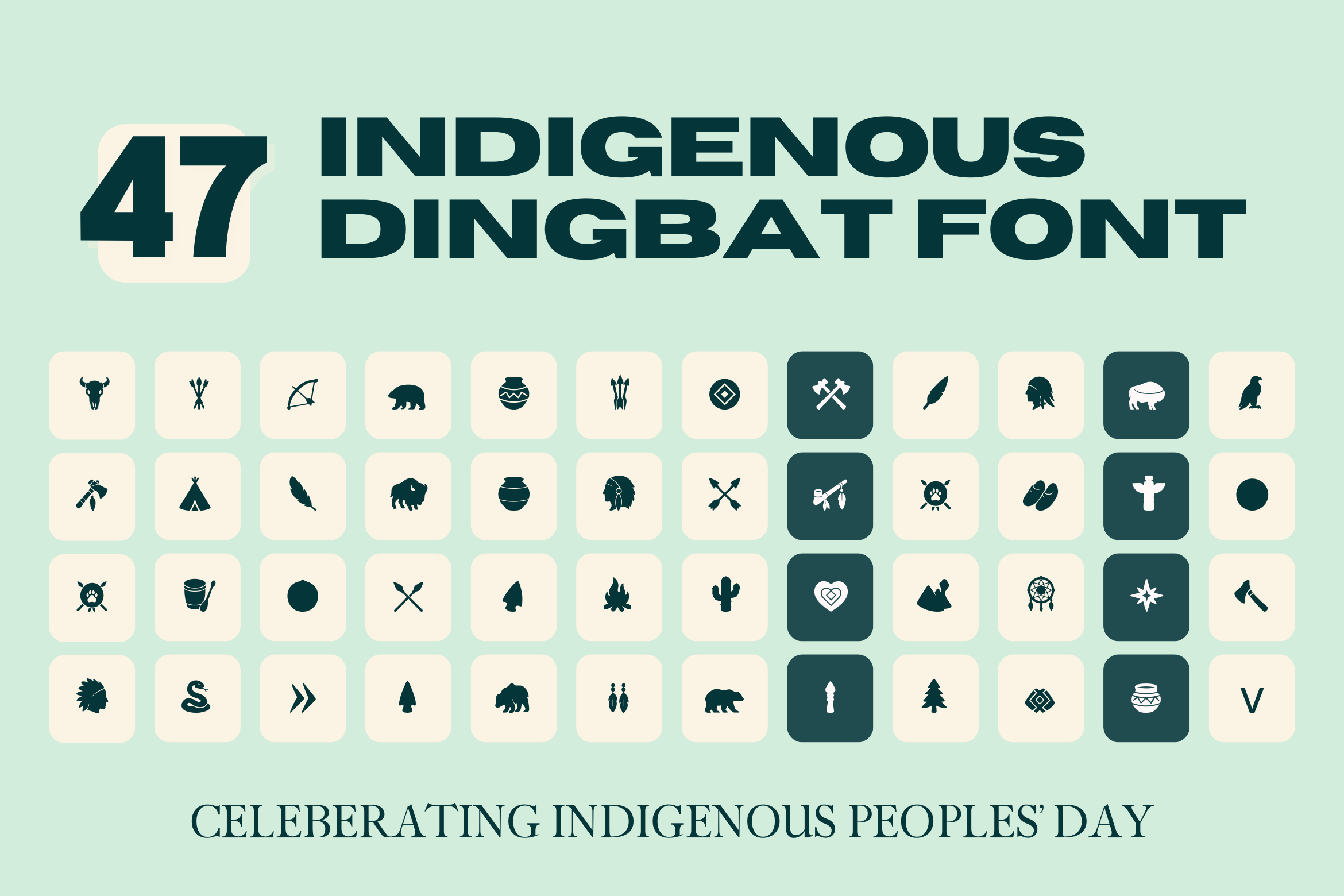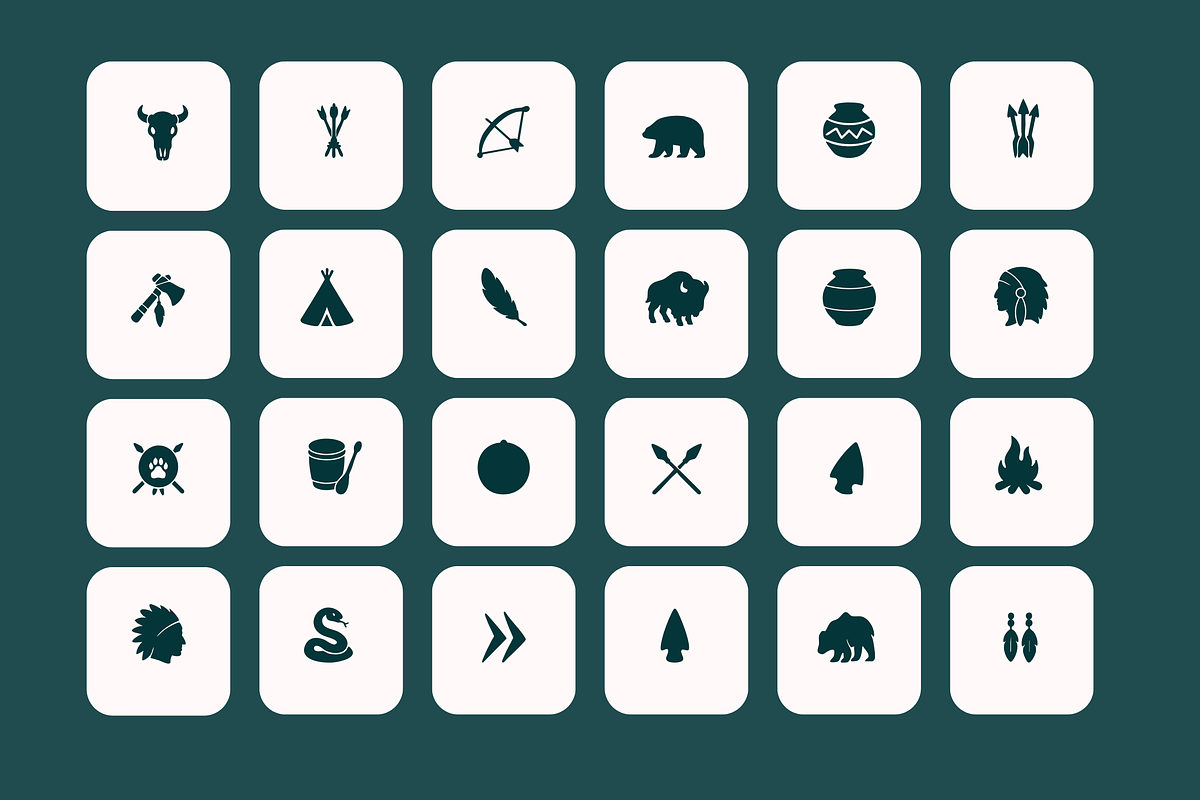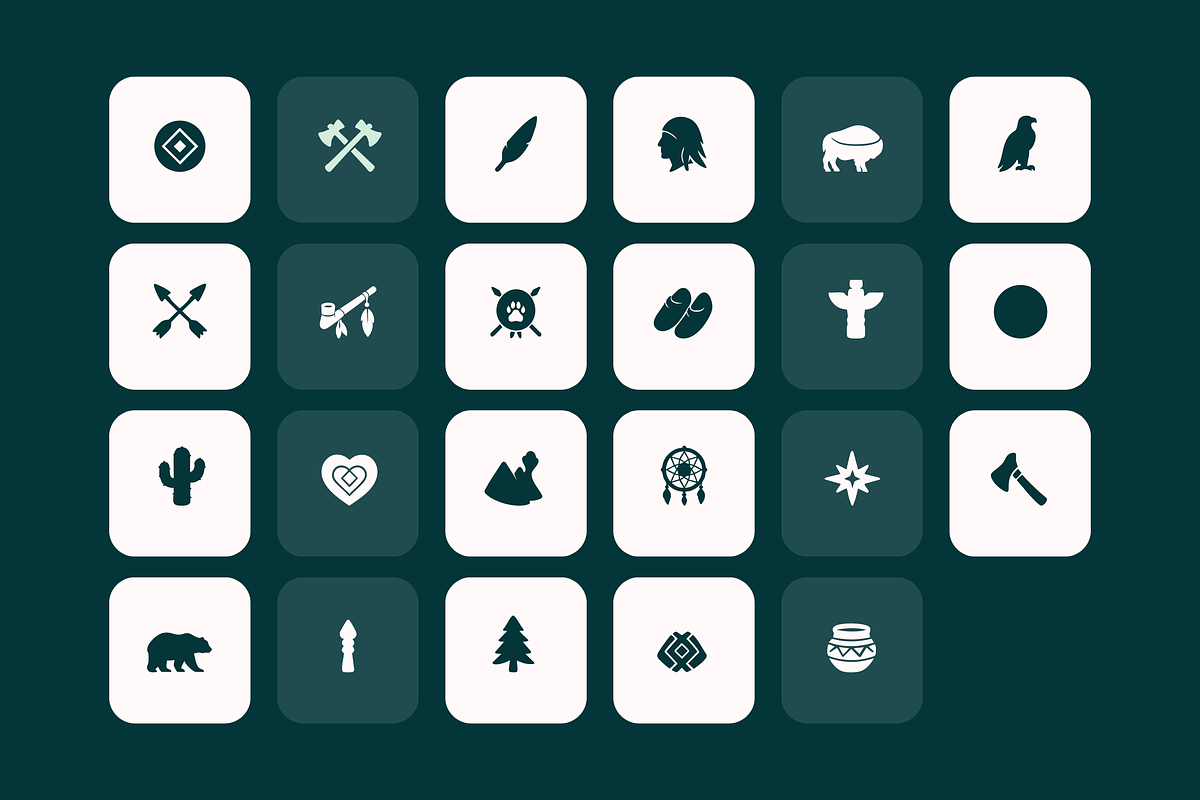
Indigenous Dingbats Font
Celebrate heritage and creativity with Indigenous Dingbats, a unique dingbat font featuring beautifully crafted black-and-white silhouettes inspired by indigenous symbols, patterns, and traditional artistry. Perfect for adding an authentic and symbolic touch to your designs, each icon is meticulously drawn for clean lines and crisp detail, making it versatile for both print and digital use.
From tribal patterns and ceremonial elements to nature-inspired icons, this set gives you a ready-to-use visual library right from your keyboard. Whether you’re designing posters, invitations, apparel, branding, or decorative layouts, these dingbats will bring meaning, culture, and artistry to your work. --
40+ hand-crafted indigenous-inspired icons
Black-and-white silhouette style for easy integration
High-resolution vector quality in font format (scales without losing detail)
Instant cultural flair for logos, stationery, packaging, and more